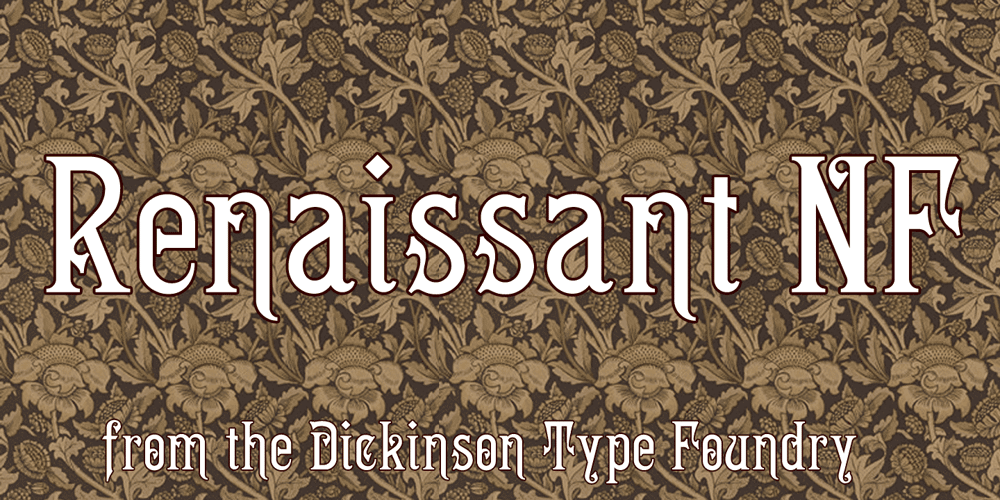
Renaissant NF Font Family was designed by published by Nick’s Fonts. Renaissant NF contains 1 styles and family package options. A classic late nineteenth-century face from the Dickinson Type Foundry of Boston. Both versions of this font support the Latin 1262, Central European 1250, Turkish 1254 and Baltic 1257 codepages.